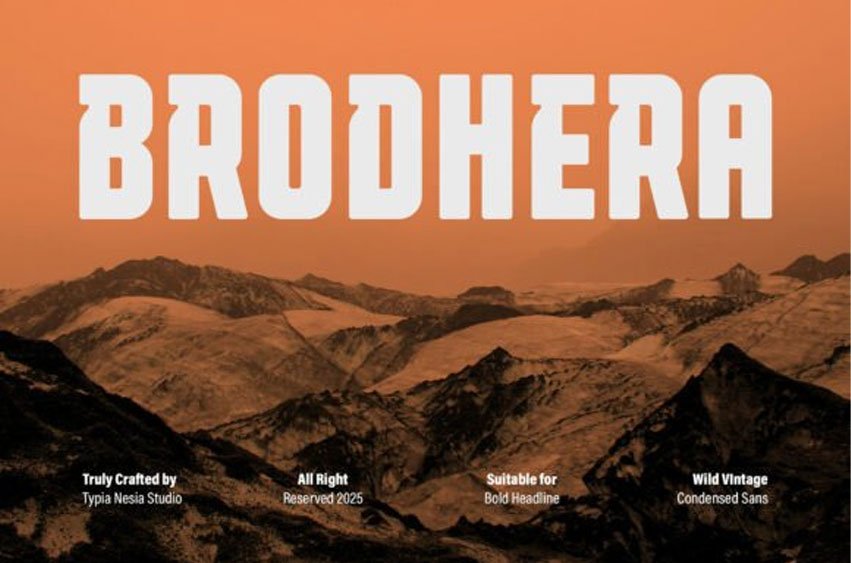
Brodhera Font is a Classic Vintage Rounded Bold Condensed Sans Font that delivers a commanding presence, perfect for high-impact display use.
This tall and unapologetically bold typeface combines a modern, urban aesthetic with a rugged, wild feel, making it an excellent choice for logos, apparel, and branding projects in the sport, game, outdoor adventure, and tech industries, and any projects that require modern and bold typefaces.
Its condensed structure ensures maximum visibility, while the subtly rounded corners maintain legibility and a contemporary edge, ensuring your message is strong, clear, and unforgettable.